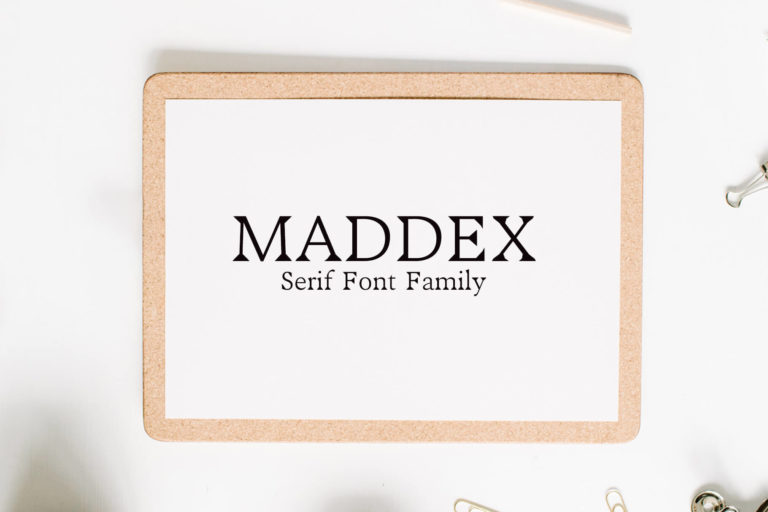
- Maddex Serif Font Family
Maddex Regular
Maddex Medium
Maddex Bold
Maddex Serif Premium Font Family is a decorative serif font family, which contains 3 weights and It features unique and modern serif look and feel. Perfect for gorgeous logos, titles, web layouts and branding. It looks gorgeous in all caps with a wide-set spacing if you want to try a classy look, or beautiful on its own in capital and lowercase letters for something completely timeless.
- Font Weight: Regular, Medium and Bold
Maddex Font Features:
- Uppercase Multilingual Letters
- Lowercase Multilingual Letters
- Non English Characters ( Latin Supplement + Latin Extended A)